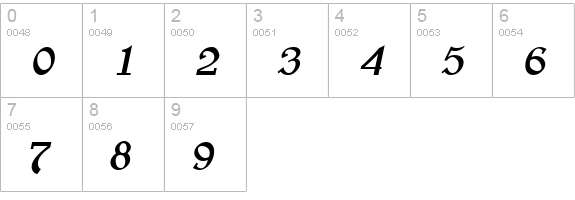
Introducing BearButteT BoldItalic font, a bold and dynamic typeface designed to make a statement in any project. With its strong and distinctive italic style, this font exudes a sense of confidence and modernity. Perfect for headlines, titles, and branding materials, BearButteT BoldItalic demands attention and leaves a lasting impression. What's more, this exceptional font is available for free download at FontsMarket.com, making it accessible to all designers and creatives looking to elevate their work with a touch of sophistication and flair. Don't miss out on the opportunity to add BearButteT BoldItalic to your font collection and unleash its bold and captivating energy in your designs.